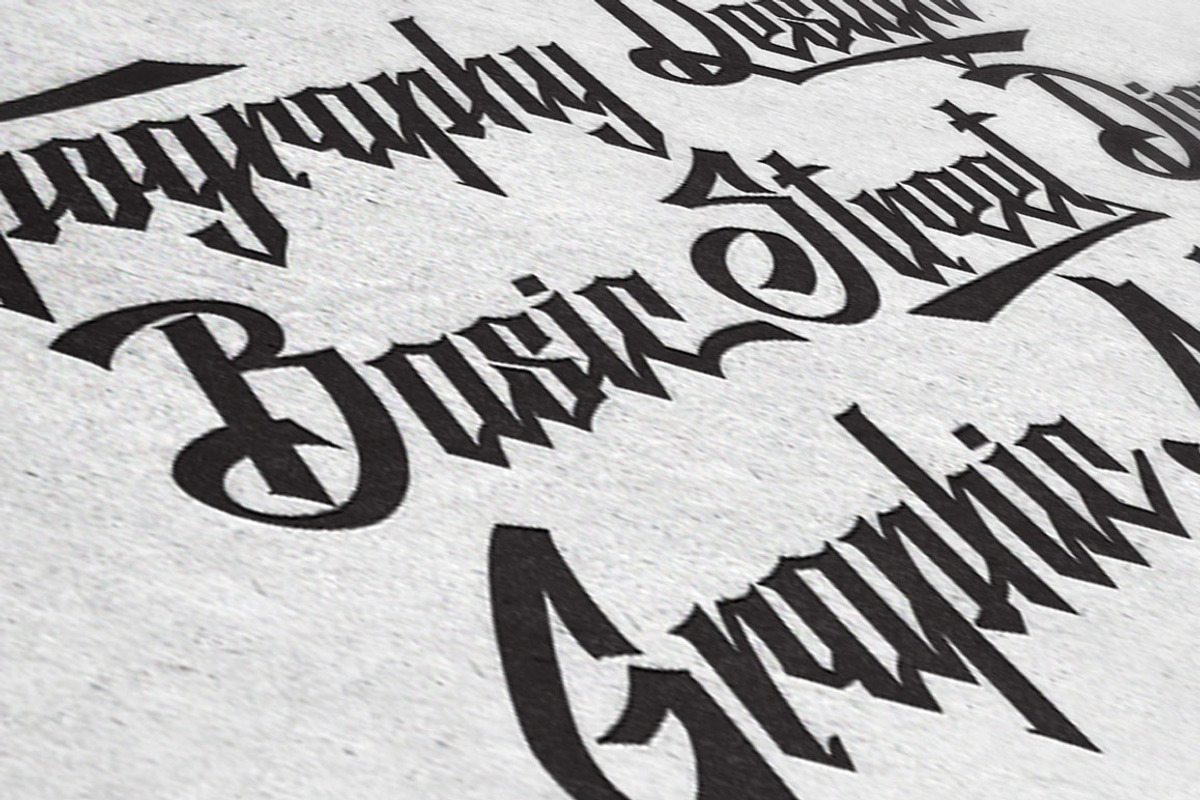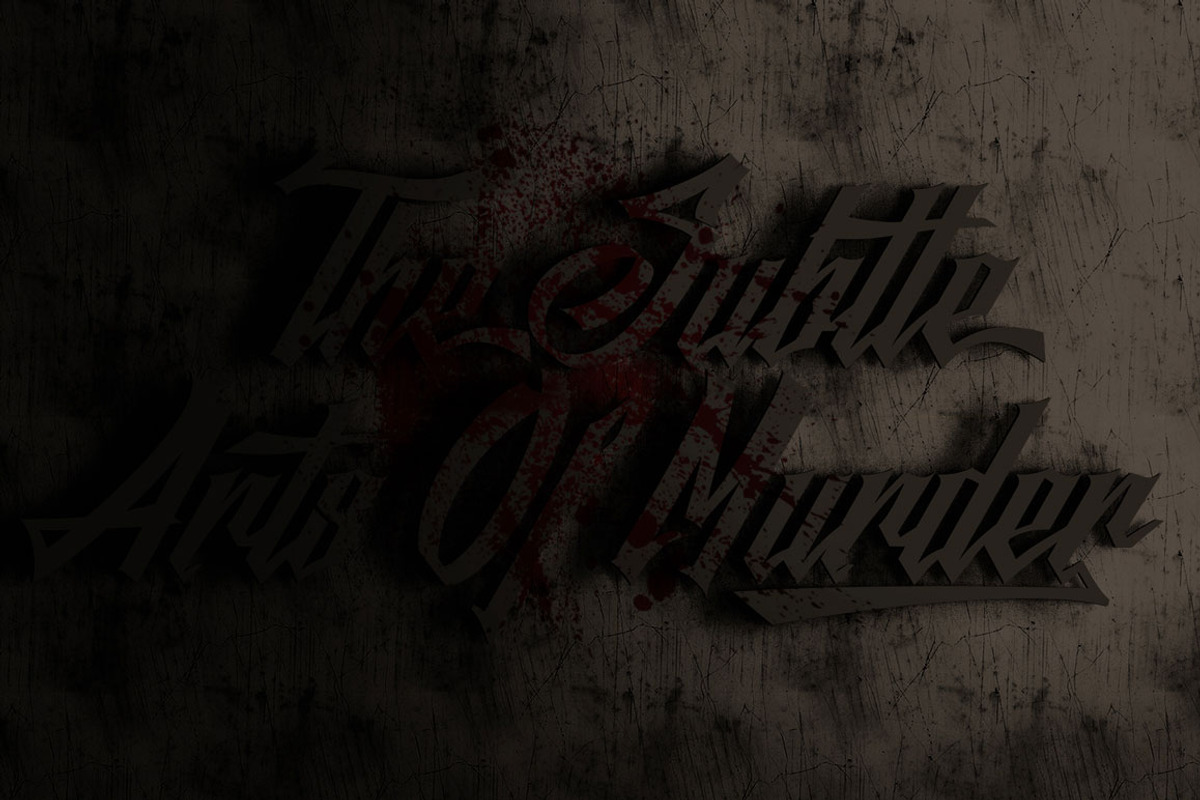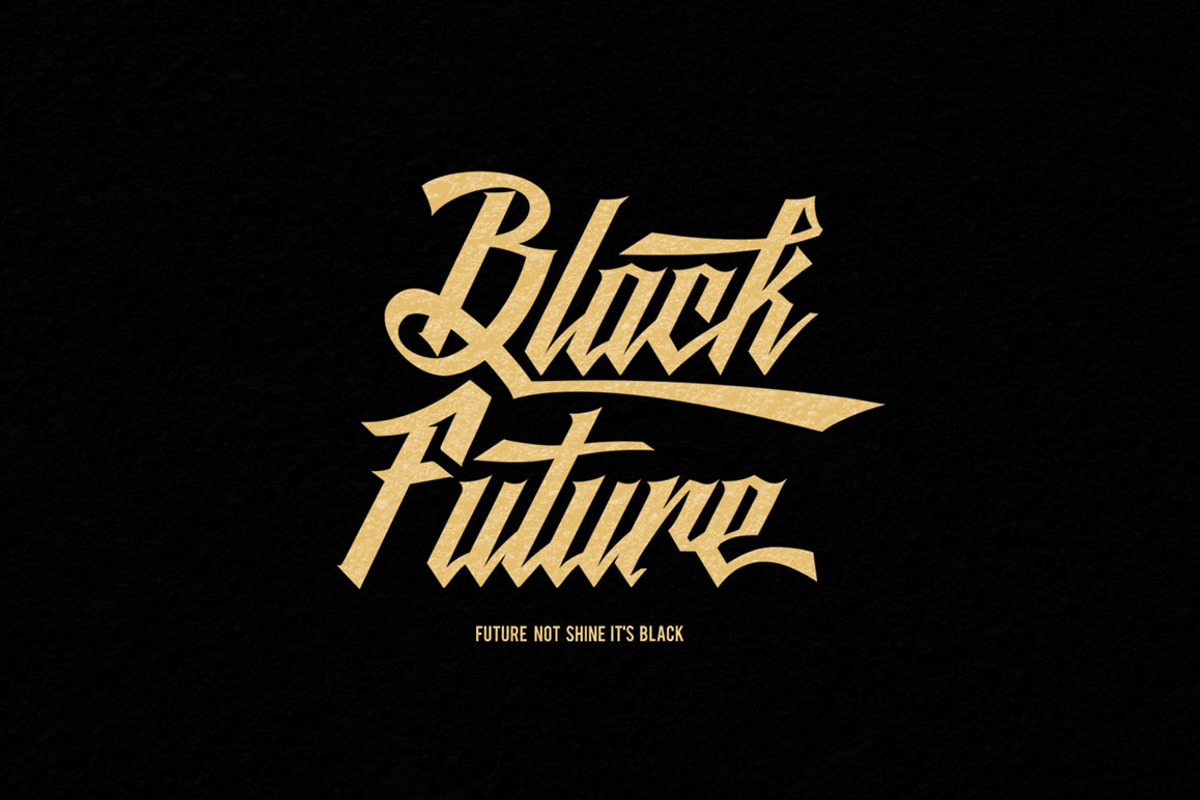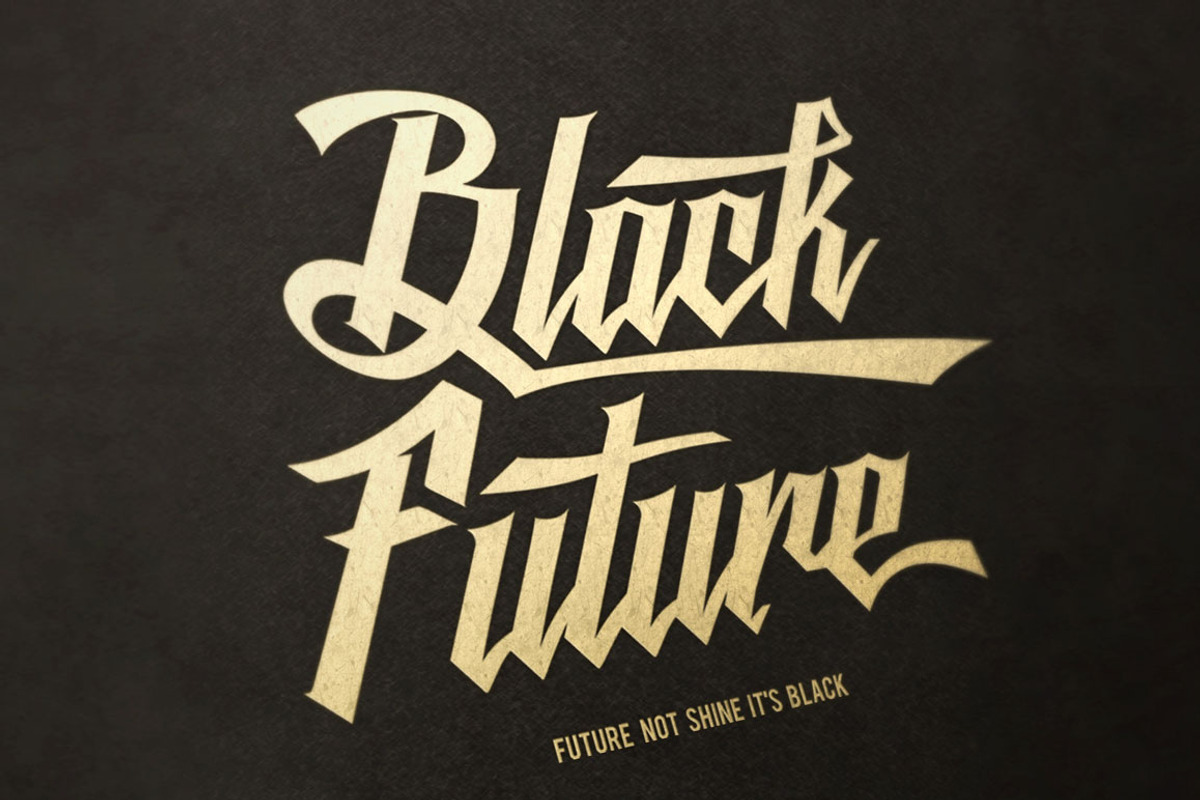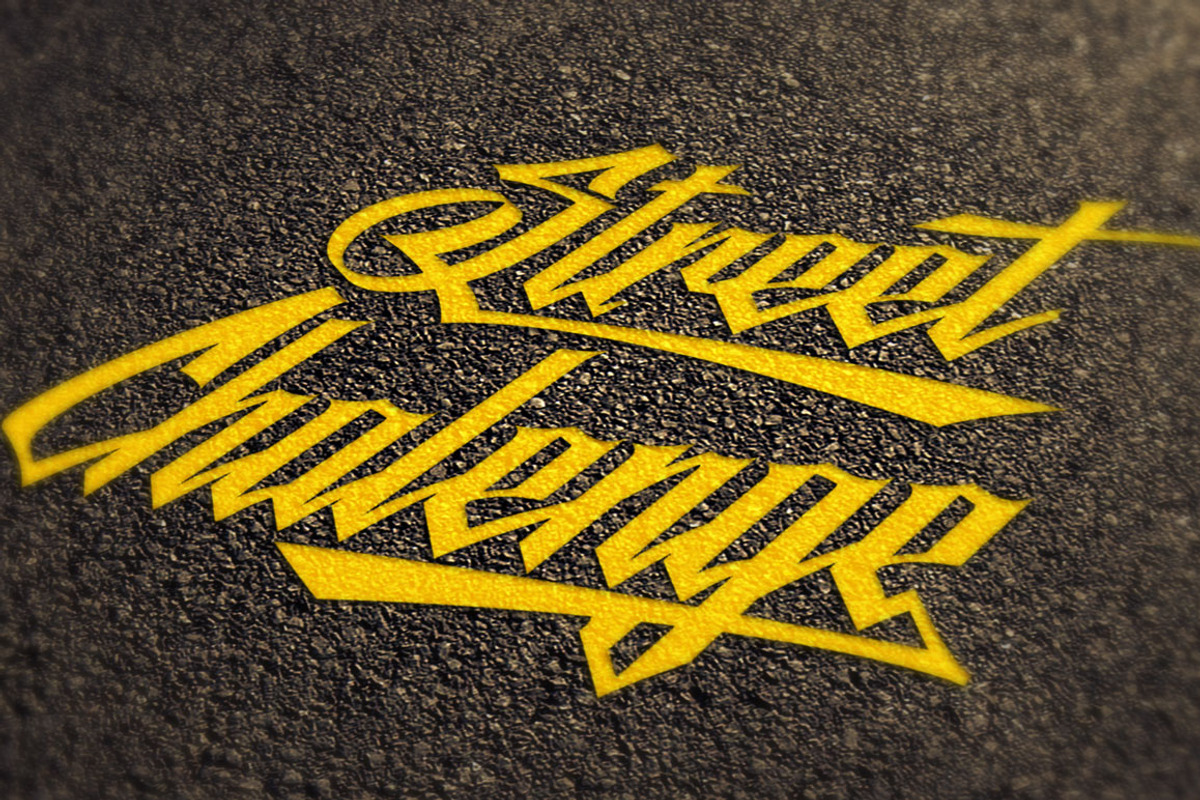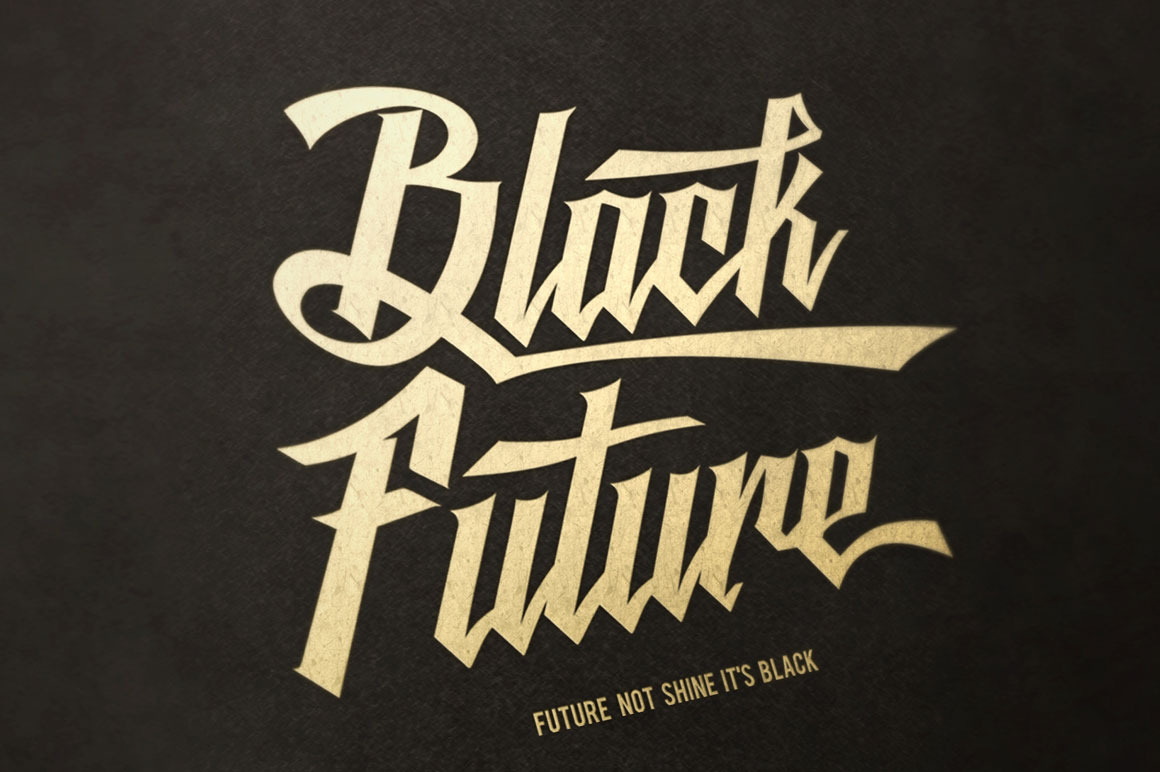
Black Future Typeface
Black Future Typeface is a new calligraphy script font combine with street art and blackletter. Sharp edges, wild typeface With almost 480 glyphs contain with opentype features. Stylistic alternates,swash and more. can be used for various purposes.such as logos, t-shirt, letterhead, signage, lable, posters, badges etc. To enable the OpenType Stylistic alternates, you need a program that supports OpenType features such as Adobe Illustrator CS, Adobe Indesign & CorelDraw X6-X7.. Files included :